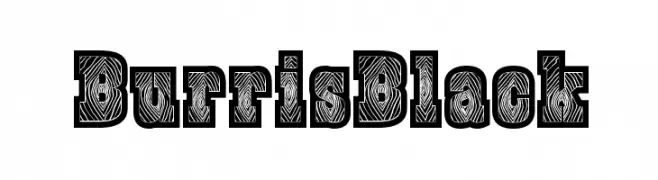
( Fonts by Daniel Gauthier )
A bold, decorative font with intricate patterns and a rugged, adventurous vibe.
( Fonts by Daniel Gauthier )
A bold, decorative font with intricate line patterns and a striking visual style.